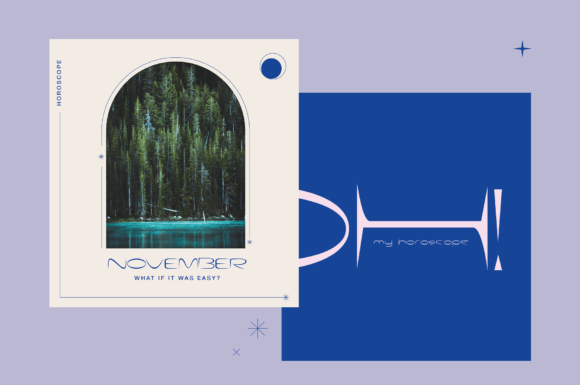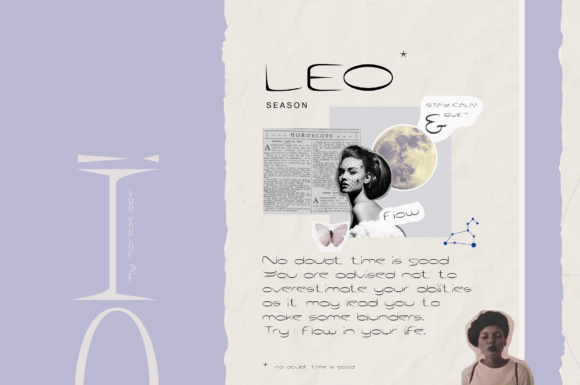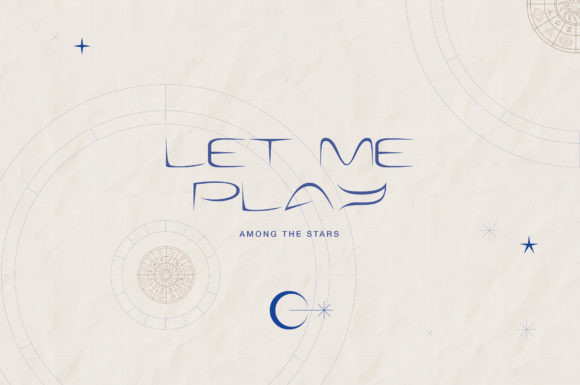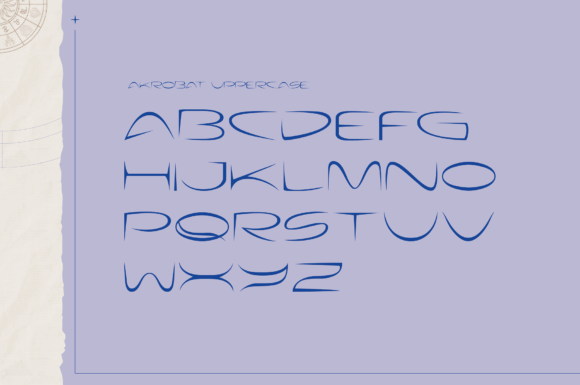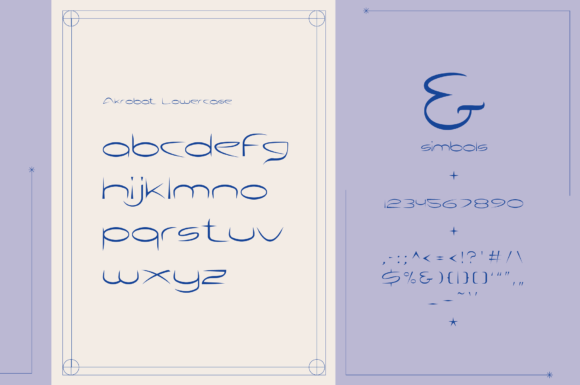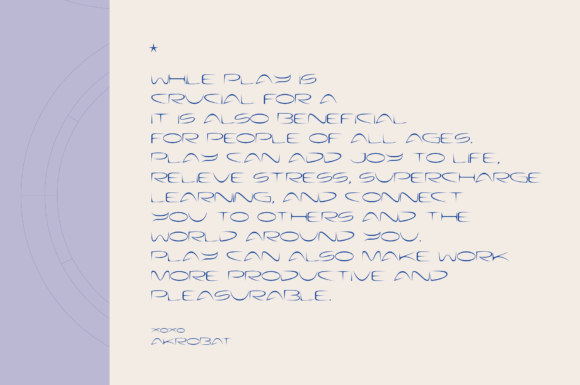
The Perfect Balance of Elegance and Style
Remember that moment when you’re working on a design project, and you’re stuck trying to find the perfect font to capture the essence of your idea? The typeface is the first thing people notice, and it can make or break the overall aesthetic of your work. That’s why discovering a font like Akrobat Font can be a game-changer.
Akrobat Font is a delicate and elegant typeface that’s designed to add a touch of sophistication to your designs. With its beautiful curves, it’s perfect for creating unique and eye-catching visual elements that stand out from the crowd. Whether you’re working on a branding project, creating social media graphics, or designing wedding invitations, Akrobat Font is an excellent choice that can elevate your designs to the next level.
As a designer, you know how valuable it is to have a versatile and stylish font in your toolkit. Akrobat Font is an excellent addition to any design library, and it’s sure to become a go-to font for your future projects.
Akrobat Font Key Features
- Font Family: Akrobat
- Font Styles: Available in 7 weights (Thin, Light, Regular, Medium, Demi, Bold, Black)
- Character Set: Supports a wide range of languages, including Latin, Cyrillic, and Greek
- Unique Characteristics: Akrobat is a sans-serif font with a unique, playful feel, making it suitable for modern and creative designs
Akrobat Font Review
Overall, I think the Akrobat font is a fun and unique addition to any design project. ✨ One of the things that works well is its versatility – it’s suitable for use in a wide range of contexts, from casual headings to formal titles. The font’s energetic and playful feel makes it perfect for creative industries like advertising and entertainment.
The Akrobat font also features a range of weights and styles, including bold, italic, and condensed versions, which makes it easy to adapt to different design needs. ✨ Additionally, the font is highly legible, even at small sizes, which is a major plus for designers working on tight deadlines.
- ⚠️ The Akrobat font may not be the best choice for formal or traditional contexts, as its playful feel may clash with more serious or conservative designs.
- ⚠️ Some users may find the font’s condensed versions a bit difficult to read, especially in long blocks of text.
Overall, I would recommend the Akrobat font for designers who want to add some personality and flair to their projects. While it may have some limitations, its unique feel and versatility make it a great addition to any design toolkit.
Tips for Getting the Most Out of Akrobat Font
Use Akrobat font for titles, headings, and other emphasis text to add a touch of elegance and sophistication to your designs.
Experiment with different font sizes and colors to create a visually appealing contrast with the Akrobat font.
Combine Akrobat font with other fonts to create a unique and eye-catching typography style.
Common Use Cases for Akrobat Font
Use Akrobat font for:
1. Magazine and newspaper headings.
2. Brochures and flyers.
3. Business cards and letterheads.
Alternatives to Akrobat Font for Designers
Akrobat Font is a sans-serif font known for its modern, energetic feel. Here are some alternatives to consider:
Open Sans is a clean, modern sans-serif font suitable for body text, headings, and titles. It’s highly legible and versatile, making it a popular choice for digital products and interfaces. Compared to Akrobat Font, Open Sans has a slightly more rounded feel, making it a good choice for designs that require a softer look.